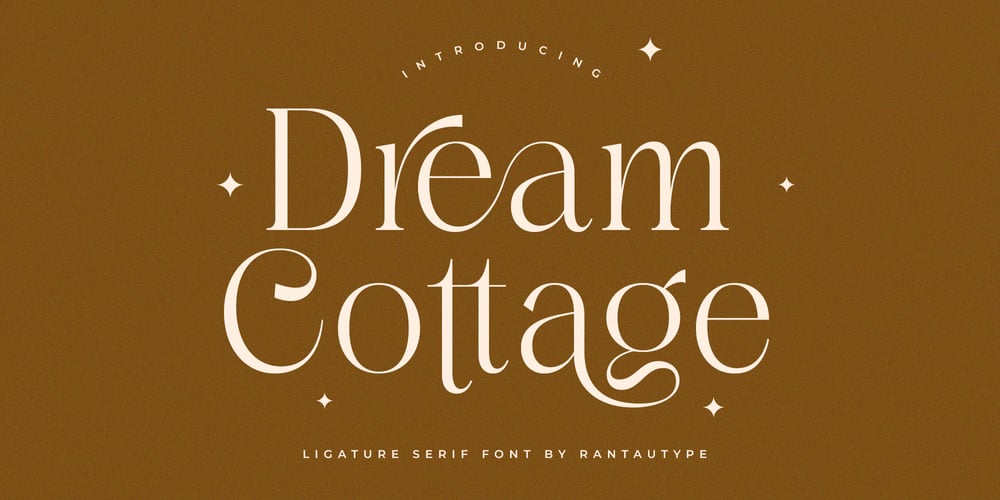
Dream Cottage
Dream Cottage font
Dream Cottage Font Family was designed by Yudi Pratama Chandra and published by RantauType. Dream Cottage contains 2 styles and family package options. Dream Cottage- a chic & elegant display modern serif with beautiful contrast and have unique ligature for optional. Specially designed for fashion-themed projects, perfectly suitable for creating elegant, chic, lifestyle design such as logos, title, and magazine, and more. Now you have more choice when using Dream Cottage for typography.Dream Cottage – I’ve also love combination the reguler and italic make cool and nostalgic.What you have: Standar character A-Z and a-z Numberial and Functional Alternate and Ligature Works on PC & Mac Simple installations Accessible in Adobe Illustrator, Adobe Photoshop, Adobe InDesign, even work on Microsoft Word.